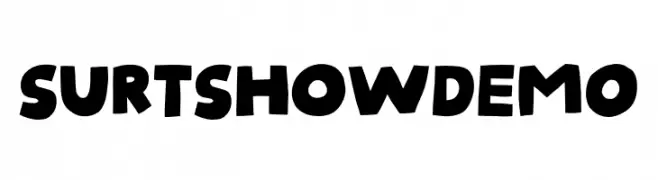
A lively, cursive font with fluid, interconnected strokes and a personal touch.
A lively, cursive script font with a dynamic and artistic flair.
An elegant, elongated font with thin strokes and a modern aesthetic.
A whimsical and playful script font with a handwritten style.
A dynamic, expressive handwritten font with brush-like strokes.
A bold, distressed font with a hand-painted, rugged appearance.
A classic serif font with elegant strokes and a refined appearance.
Sharp, gothic-inspired display font with bold, angular strokes.
A decorative, gothic-style font with arrow-like serifs and pointed ends.
A decorative font with arrow-like serifs and a hand-drawn, edgy style.
A bold, brush-style font with an edgy, rebellious look.
Decorative handwritten font with playful elegance.
A fluid and elegant handwritten font with a natural cursive style.
A playful, rounded font with a hand-drawn, whimsical style.
A bold, geometric font with a playful and decorative style.
A flowing, cursive font with elegant curves and a handwritten style.
A cursive, handwritten font with elegant, flowing curves.
A bold, geometric font with a futuristic, digital aesthetic.
A bold, dynamic brush script font with expressive strokes.
A bold, brush-style font with dynamic and expressive strokes.
A bold, playful handwritten font with thick strokes and rounded edges.
A dynamic, flowing script font with elegant, cursive strokes and a slight italic slant.
A playful, casual handwritten font with fluid, irregular strokes.
A playful and elegant script font with flowing, cursive design.
A flowing, elegant script font with intricate loops and flourishes.
A playful and elegant script font with flowing, cursive letterforms.
A bold, hand-drawn font with a textured, artistic style.
A playful, hand-drawn outline font with a whimsical and dynamic style.
A bold, expressive handwritten font with an artistic and playful style.
A bold, expressive brush-style font with dynamic, hand-painted strokes.